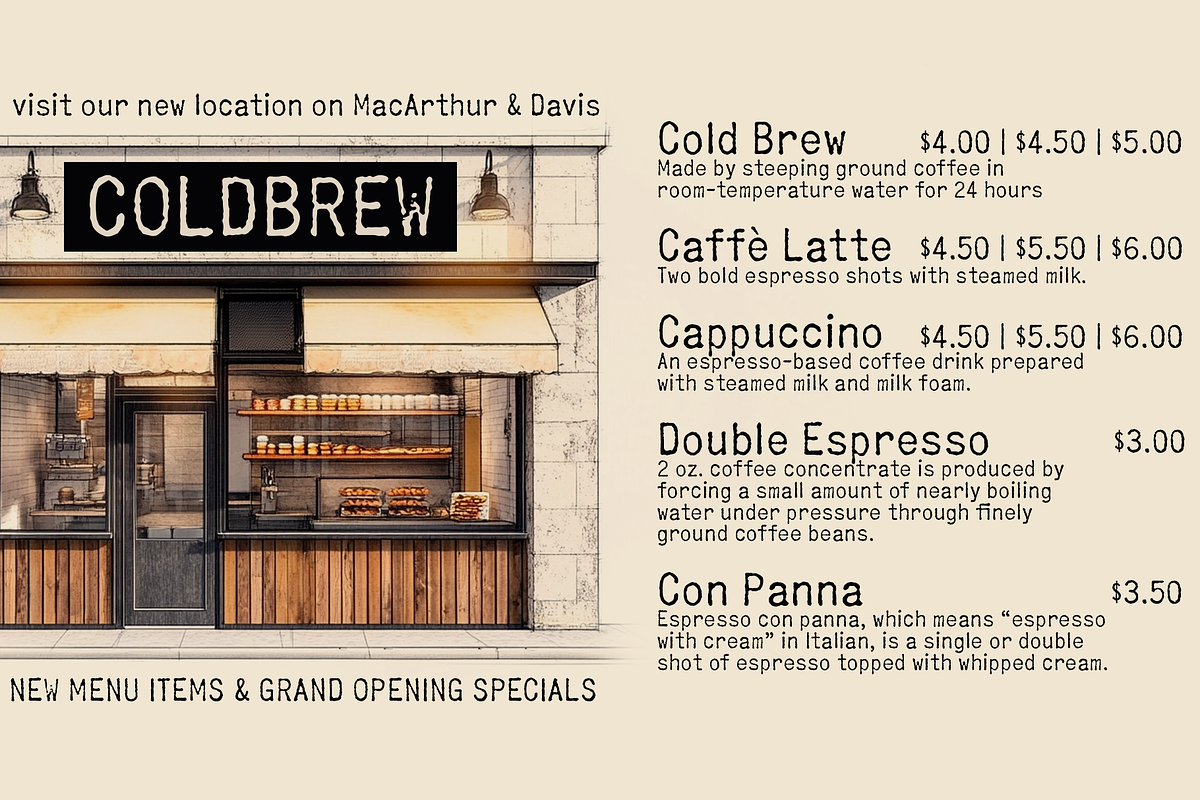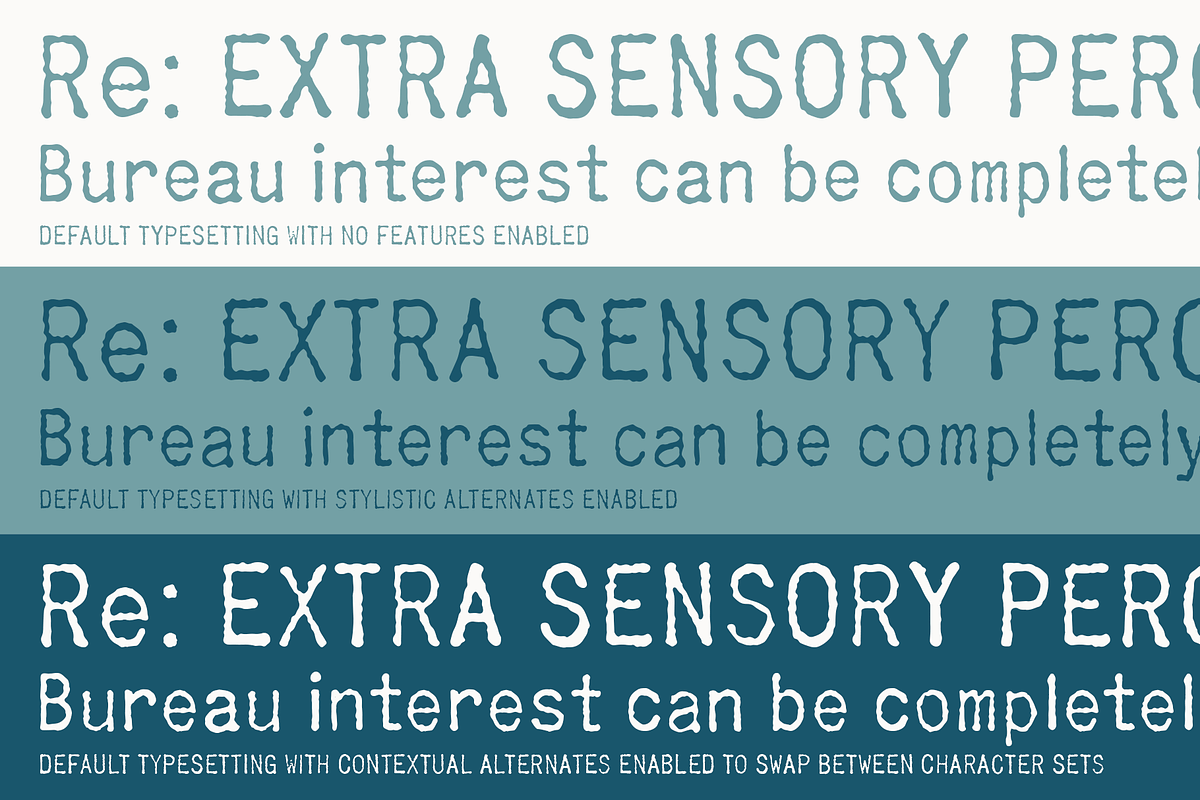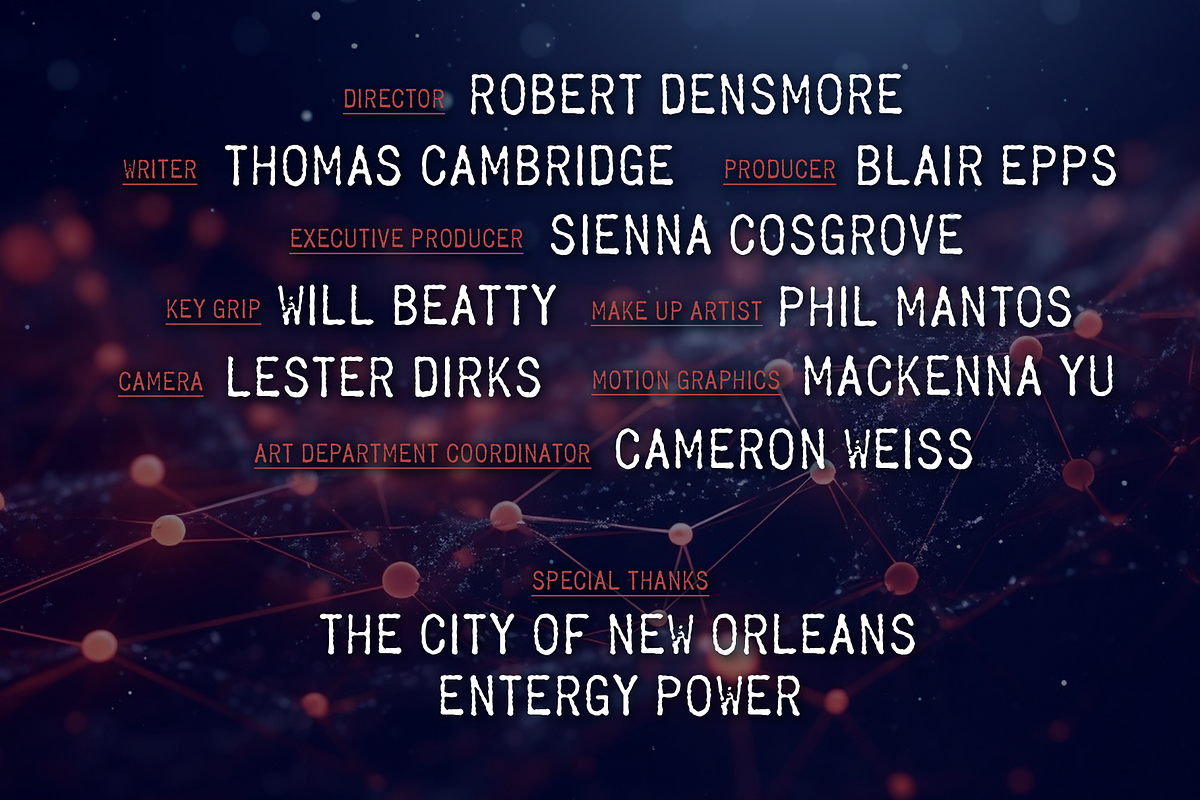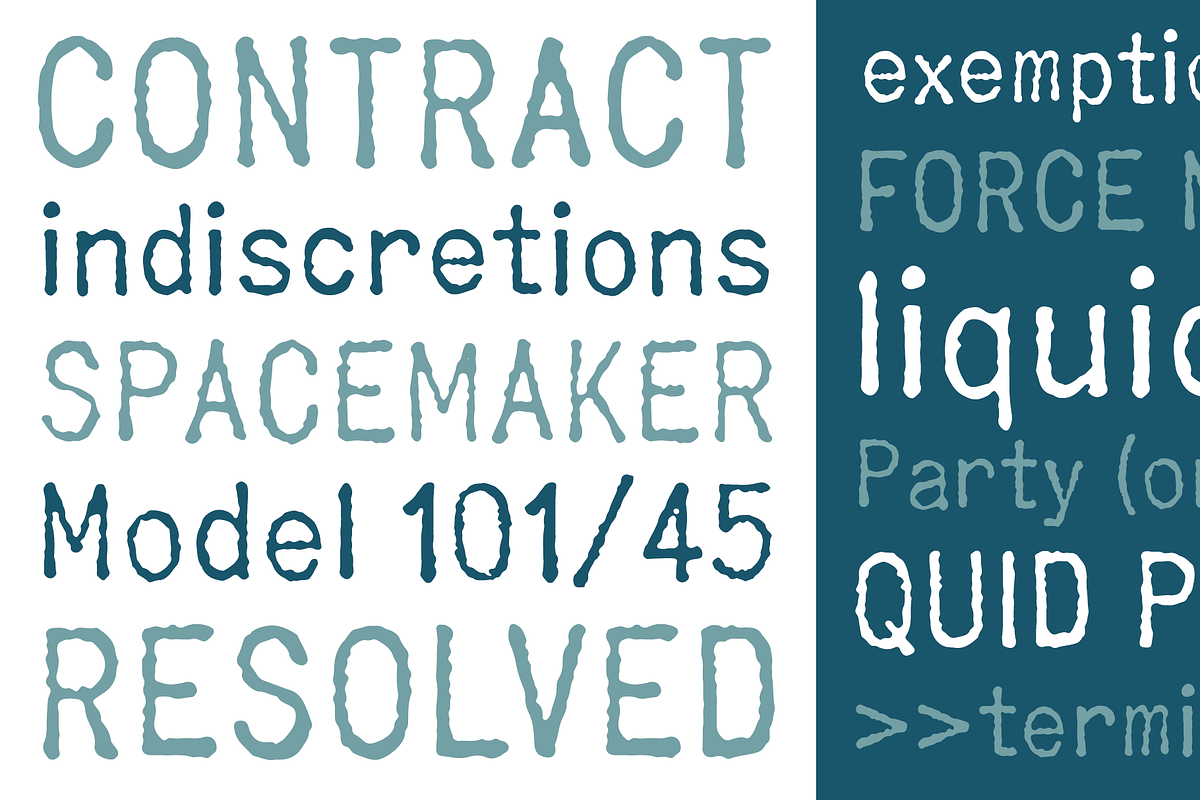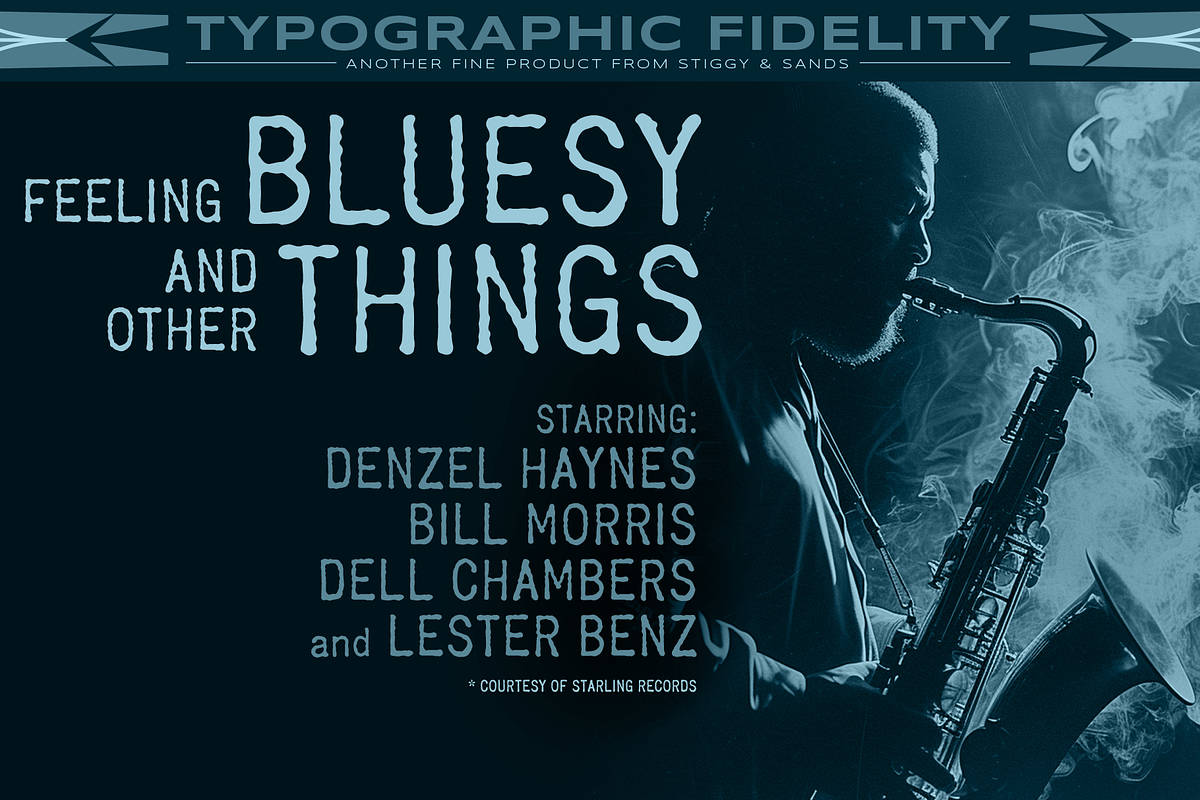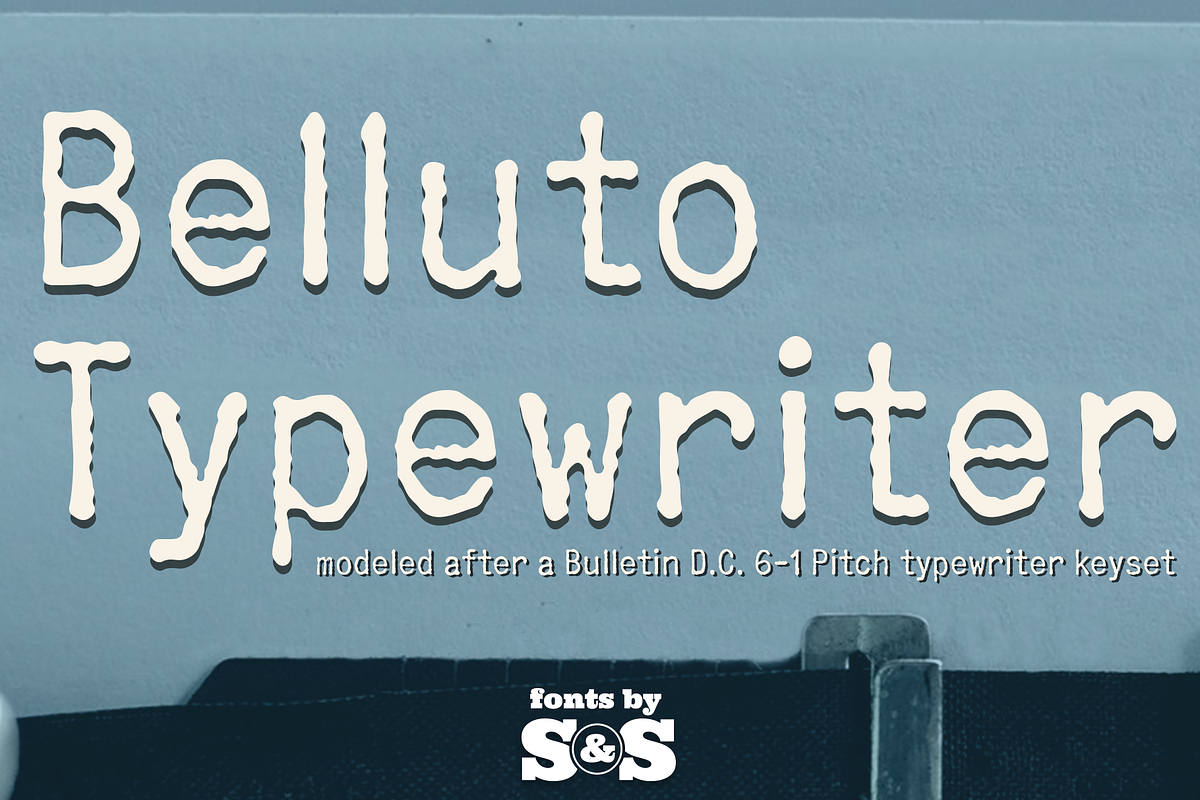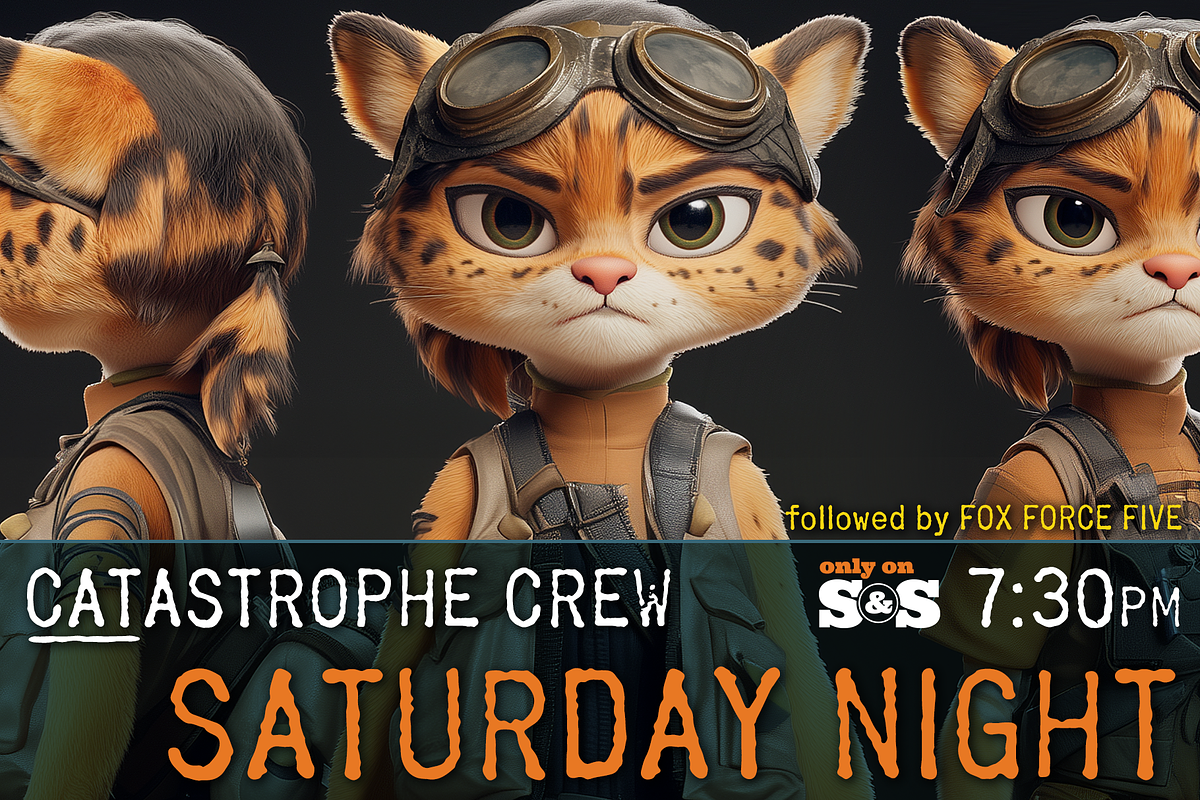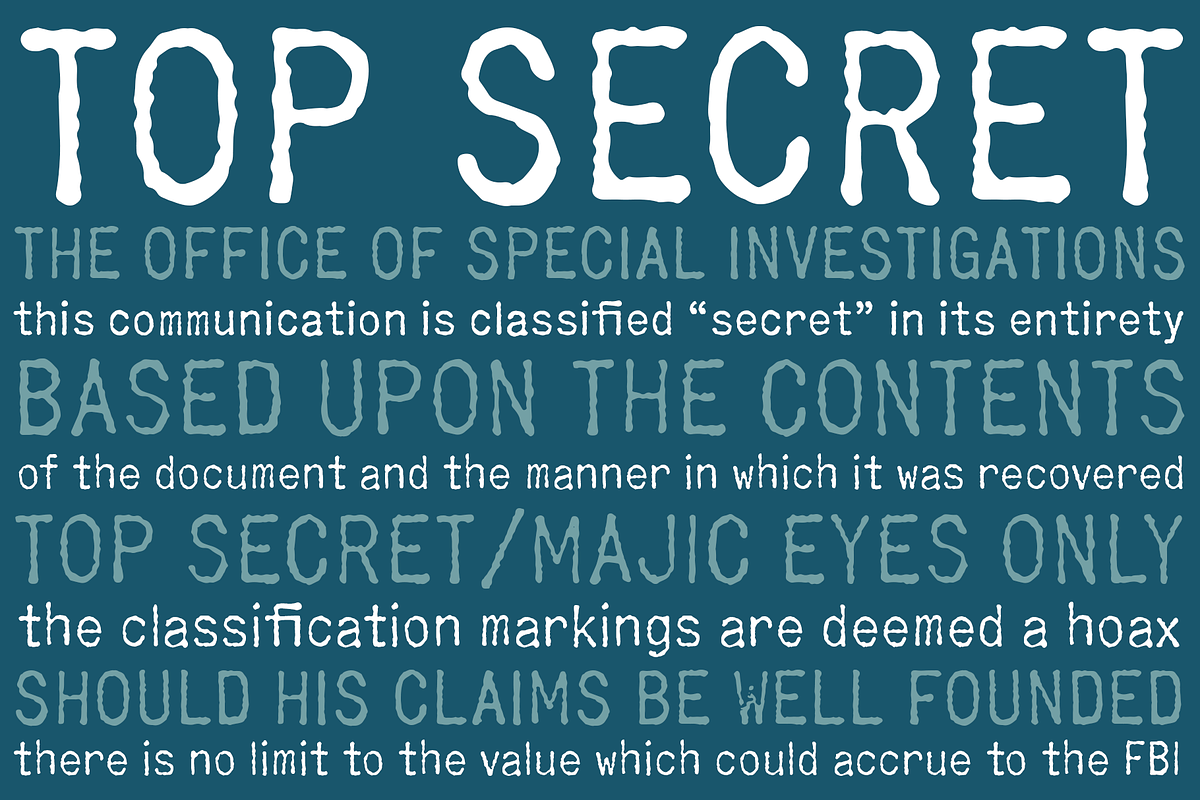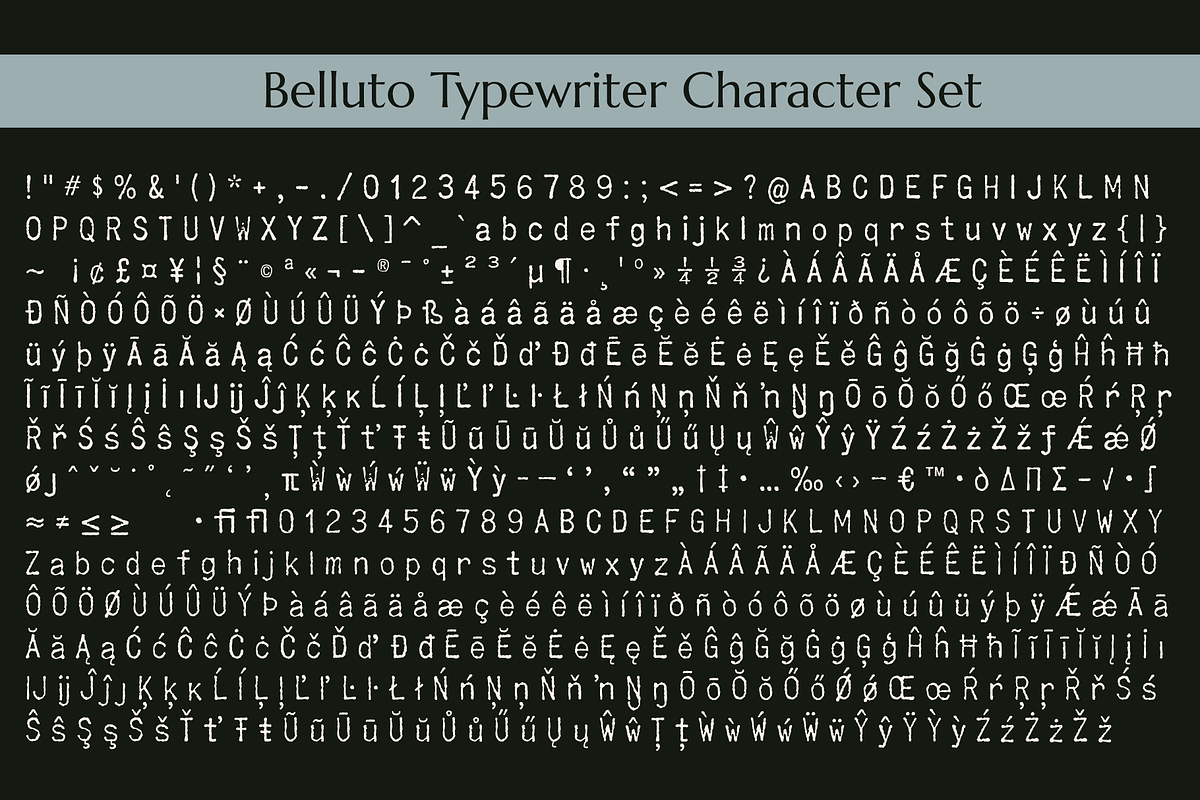
Belluto Typewriter
Bulleto Typewriter brings the rare individuality of the Bulletin D.C. 6-1 Pitch vintage typewriter keyset to the digital age. Bulleto has a unique sans serif typestyle that feels right at home in vintage military top secret document recreations as well as vintage script reproductions and much more. Antique typewriters would type with a warmth and appeal to them, primarily because of their unpredictable “grunge” results from force of keystrokes to ribbon and paper and we've tried to keep that flavor by adding an alternate set of Capitals, Lowercase, and Numerals that will auto swap in as you type (when Contextual Alternates is enabled) adding subtle variance to the letters.
OpenType features include:
Standard typesetting character set.
Stylistic Alternates variant Capitals, Lowercase, and Numerals sets.
Contextual Alternates feature which auto enables switching between the two sets as you type)